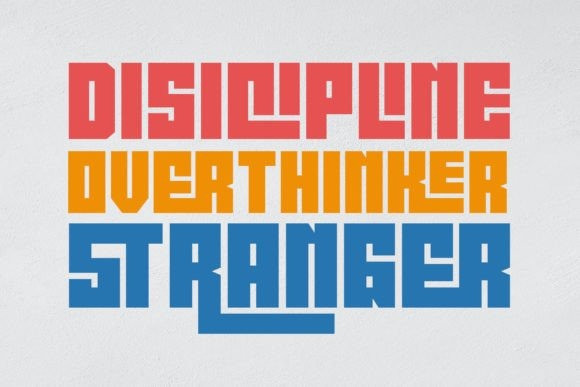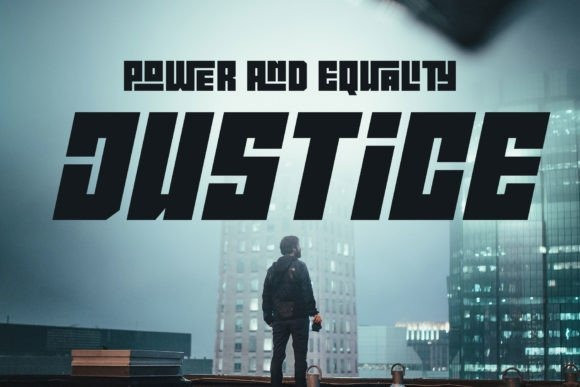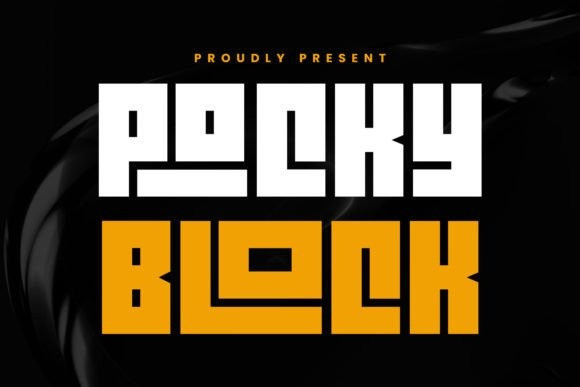
Pocky Block Font
Pocky Block Font, a font that’s bold and blocky with elegant and modern design. This font exudes a sporty, assertive, and daring vibe, making it a perfect fit for designs with sports, adventure, or futuristic themes. It’s great for stickers, movie posters, flyers, displays, logos, motion graphics, advertising, and more.